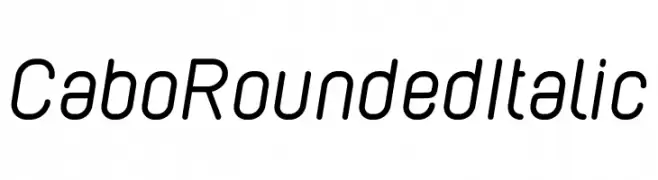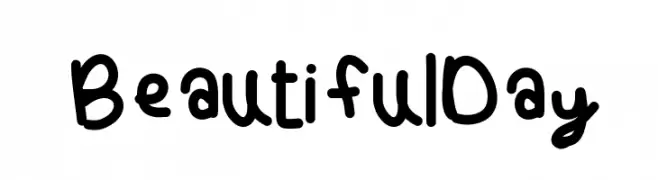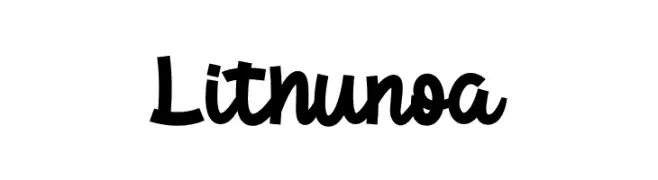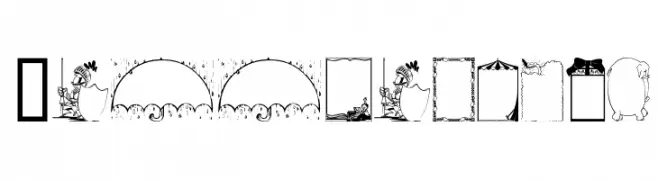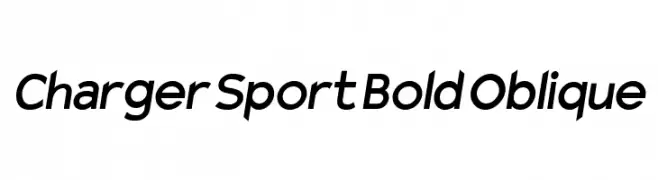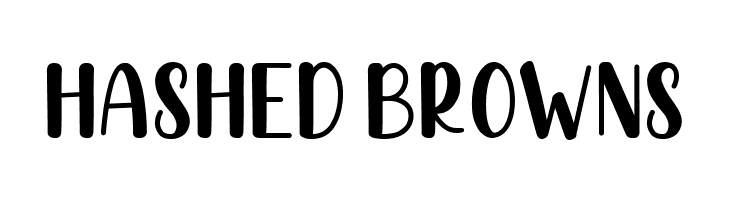
A modern, rounded, and italic font with a friendly and dynamic style.
A playful handwritten font with a casual and friendly style.
Playful handwritten script font.
A playful and bold font with rounded strokes and whimsical curves.
A bold, dot matrix style font with a retro digital feel.
Whimsical, illustrated frames with playful and child-friendly designs.
A bold, modern font with thick, uniform strokes and a slightly condensed appearance.
A bold, geometric font with a modern, digital aesthetic.